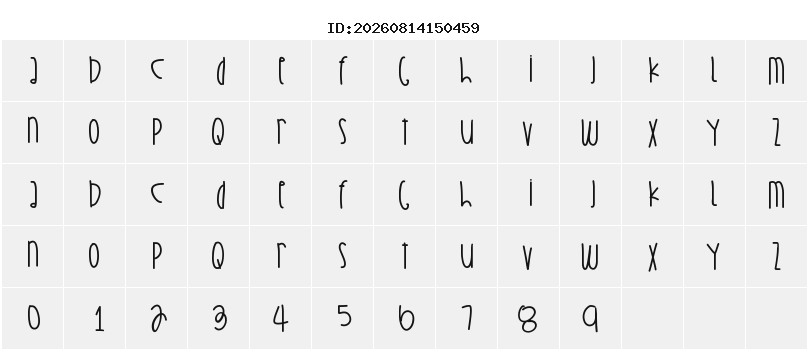
StrawberryTofu.ttf is a modern, elegant sans-serif font designed for ultimate readability and visual harmony. Perfect for branding, headlines, web design, and print materials.